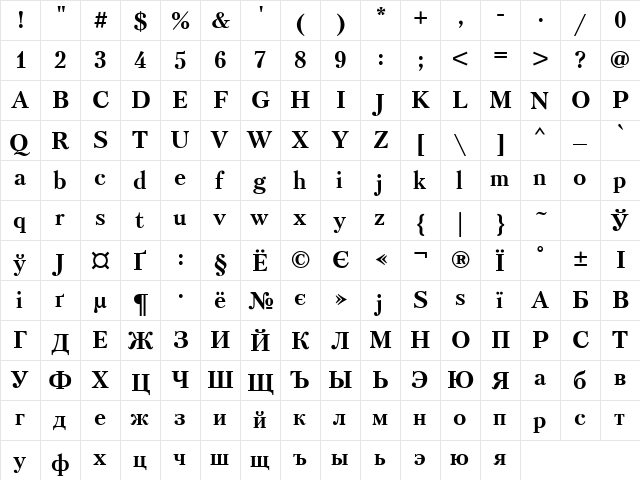
Petersburg Bold Cyrillic
Petersburg takes a measured approach to typography — its balanced proportions and neutral character make it a reliable workhorse for both digital and print work. The heavy weight commands attention and anchors typographic hierarchies.